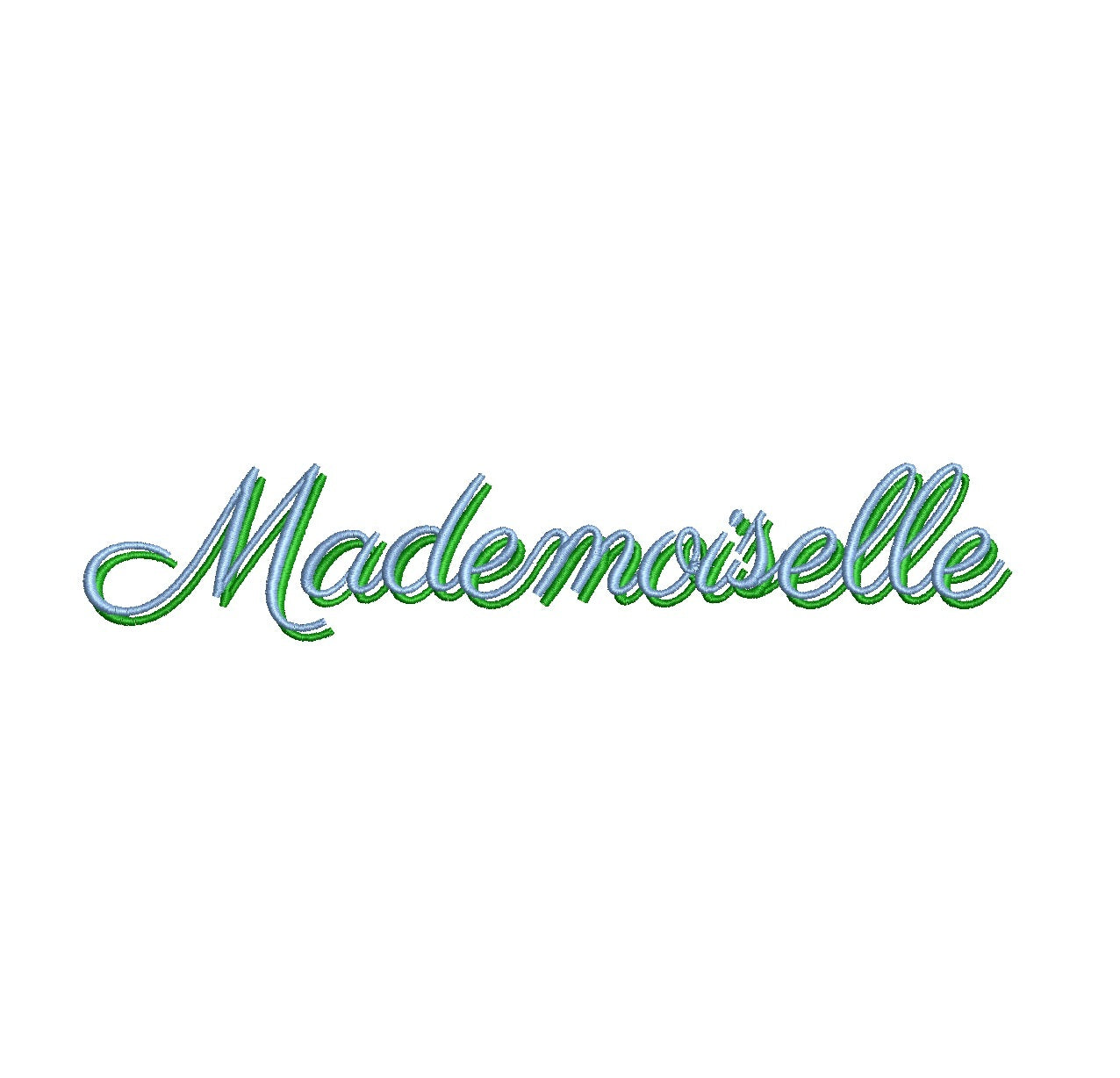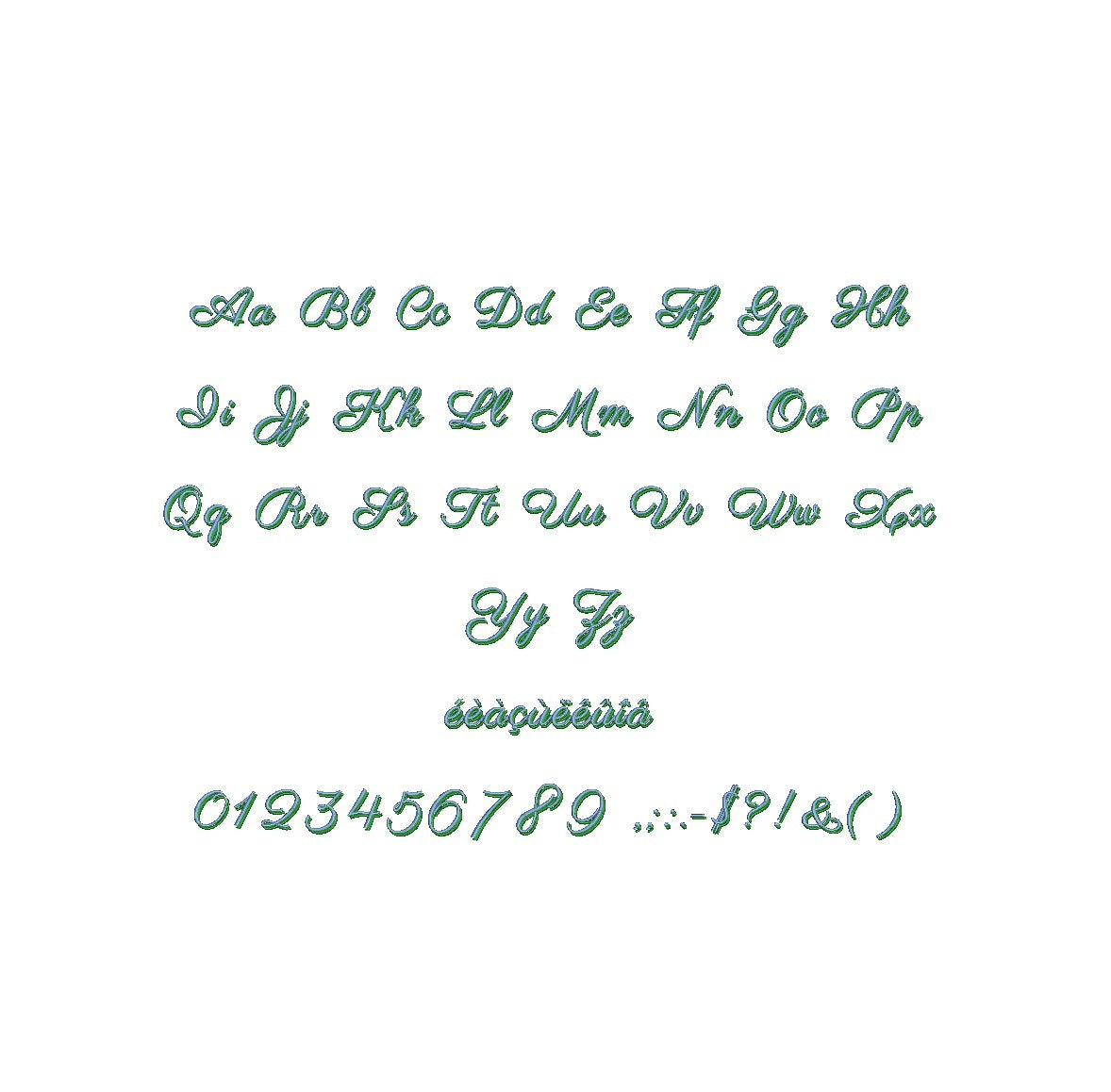
Discover the unparalleled Mademoiselle Shadow ESA Font – a true embroidery aficionado's delight! Tailor-made for Wilcom Studio e4.5.6 and Hatch 3 versions onwards, this font seamlessly merges timeless elegance with top-tier compatibility. Let your creative visions flourish effortlessly as this font effortlessly integrates with your preferred embroidery software. Elevate your projects with an air of sophistication – be it monograms, logos, or intricate designs. Your embroidery journey takes on a professional edge, leaving an indelible mark stitch by stitch. Unleash limitless textile artistry today! Elevate your creativity and precision by embracing the Mademoiselle Shadow ESA Font. Grab it now and illuminate your embroidery endeavors.